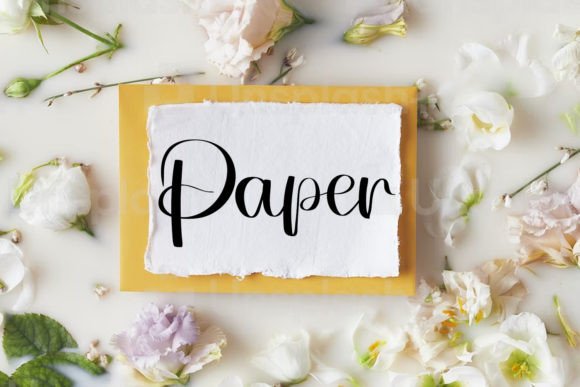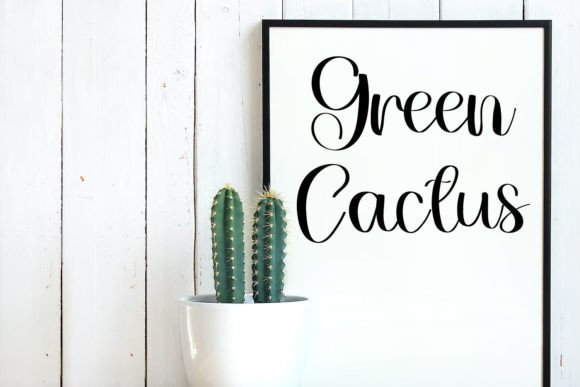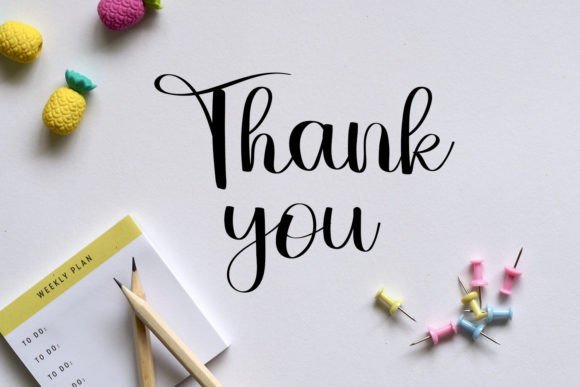
Introduction to Nobel Font
Nobel is a romantic and sweet calligraphy typeface with characters that dance along the baseline.
It will add a luxury spark to any design project that you wish to create .
Key Features of Nobel Font